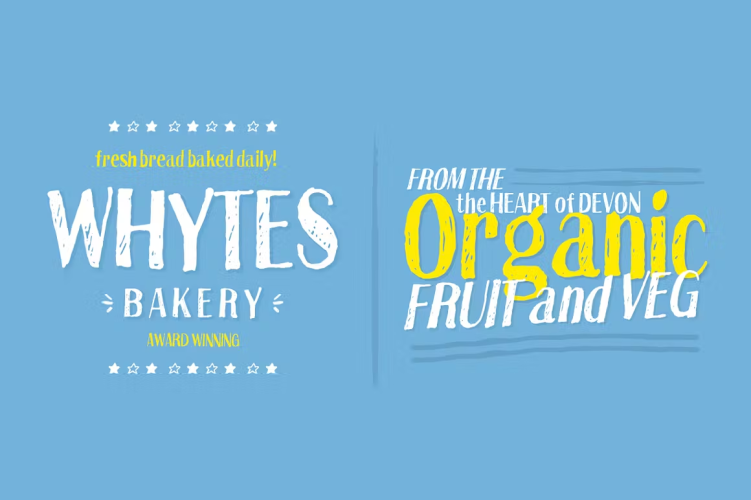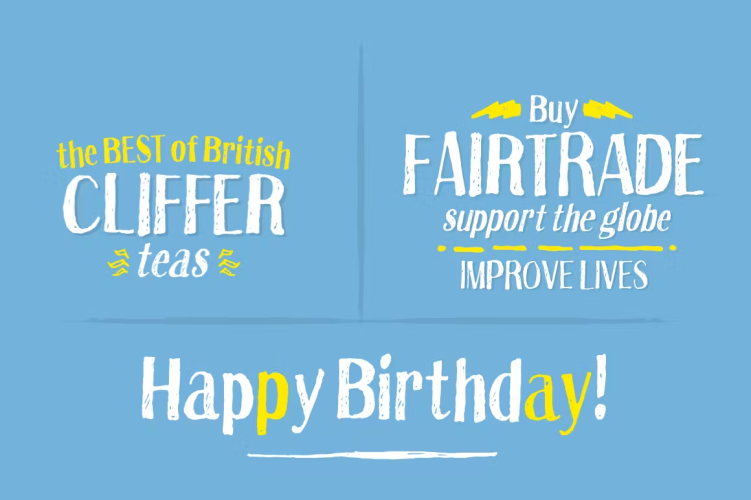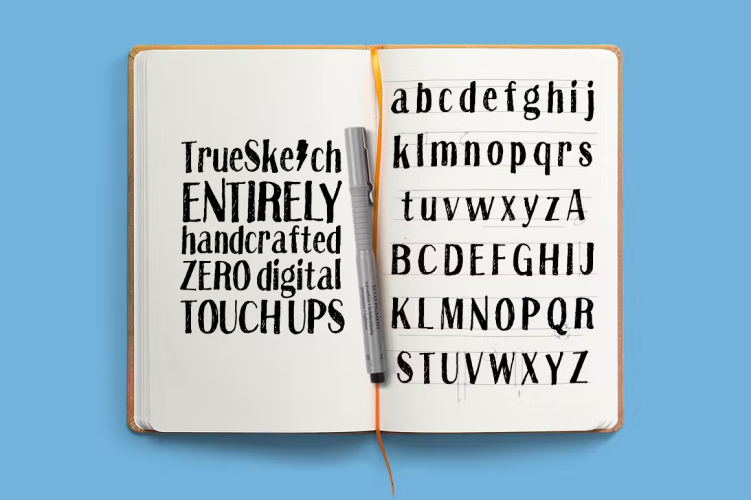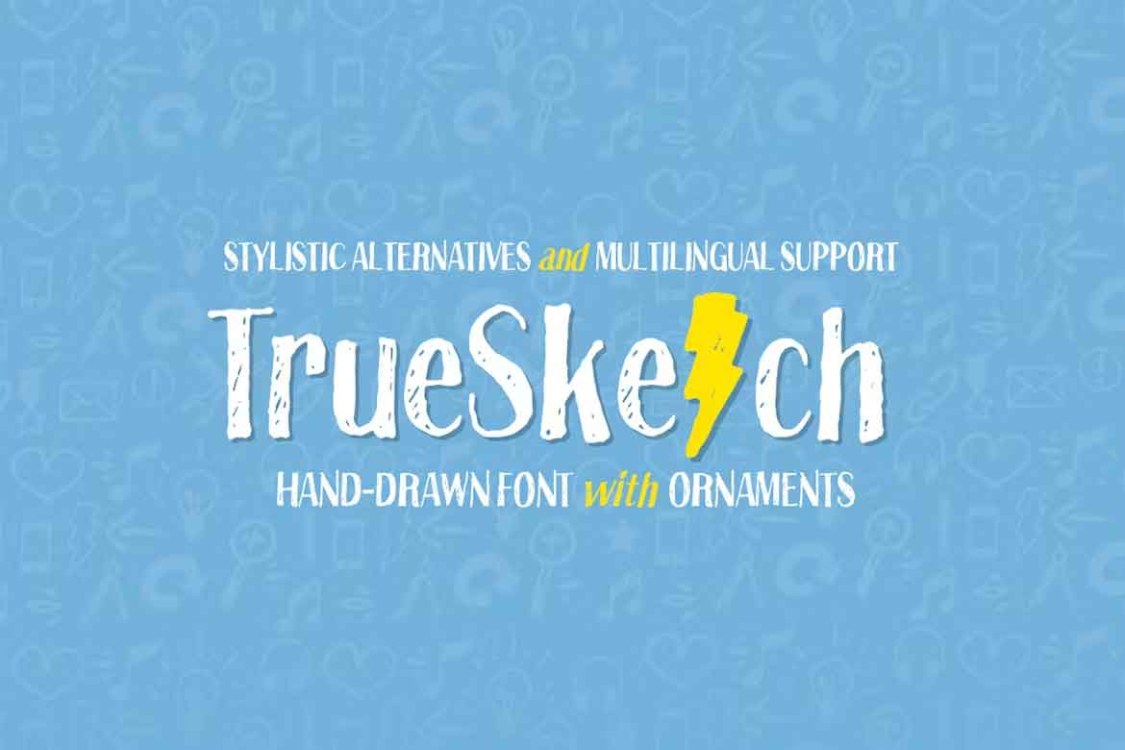
Truesketch Font
TrueSketch is a fun, practical and versatile font that can be used in various digital projects. It is a regular font (+ Italic!) with stylistic alternatives for every le…
TrueSketch is a fun, practical and versatile font that can be used in various digital projects. It is a regular font (+ Italic!) with stylistic alternatives for every letter to help you emphasize the authentic handwritten style. Every glyph was hand drawn, scanned, and converted to vector without any digital touch-ups!
Also included: True Sketch Ornaments, 85 hand drawn design elements that perfectly complement this complete font family
Where Truesketch Font works best
A short phrase in Truesketch Font carries warmth that a typeset sans cannot fake; keep the rest of the card plain.
Chalkboard-style headings in Truesketch Font make a menu feel hand-made. Keep the dish descriptions in a simple face so prices stay readable.
One line of Truesketch Font over a photo is enough; the script carries the tone and the caption does the work.
What kind of work does Truesketch Font suit?
It sits in the Script And Handwritten group and reads as handwritten, professional, script, script and handwritten. That makes it a candidate wherever those qualities help: headings, packaging, social graphics and brand work. Set it at the size you plan to use before deciding.